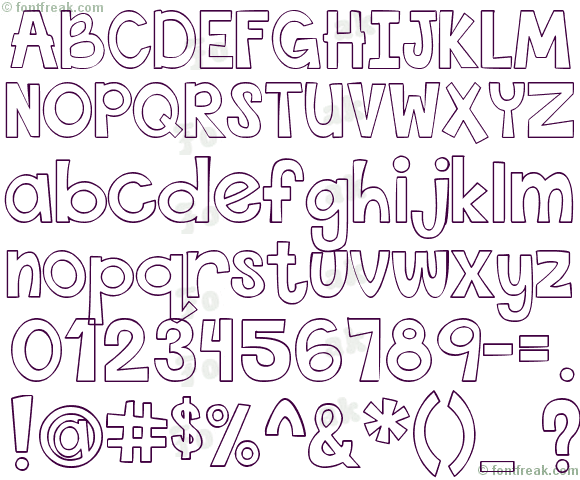
THIS FONT IS EMPTY1 Bold by Darcy Baldwin is a distinctive display typeface that offers a unique visual experience. Characterized by its bold, outlined letters, this font exudes a playful and modern vibe. The stroke weight is consistent throughout, creating a strong visual presence that can easily grab attention. The lack of solid fills gives it a minimalist aesthetic, making it ideal for projects that require a clean yet impactful look. The spacing between characters is generous, enhancing readability while maintaining a contemporary feel.
This typeface is particularly well-suited for a variety of creative applications. It can be effectively used for branding purposes, such as logos for startups and small businesses looking to make a memorable impression. Additionally, its bold outline makes it a great choice for eye-catching posters, whether for events, movies, or art exhibitions. The playful nature of THIS FONT IS EMPTY1 Bold also lends itself to invitations, especially for casual gatherings and parties. Furthermore, it can add a unique flair to restaurant menus, helping dishes stand out in a visually appealing way.
The target audience for this font includes graphic designers, small business owners, and content creators who seek to elevate their projects with a distinctive typeface. The versatility of THIS FONT IS EMPTY1 Bold makes it a valuable addition to any designer's toolkit.
What sets THIS FONT IS EMPTY1 Bold apart is its ability to combine simplicity with boldness. It captures attention without overwhelming, making it a perfect choice for those looking to convey a strong message with style. With its freeware license, you can easily access the THIS FONT IS EMPTY1 Bold font free download, allowing for unlimited creative possibilities in your projects.